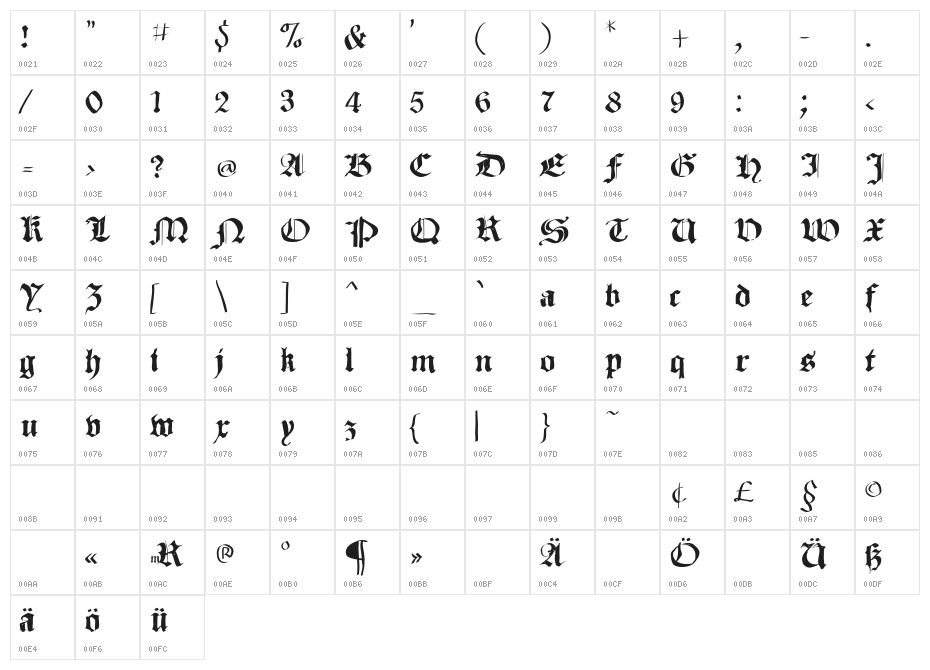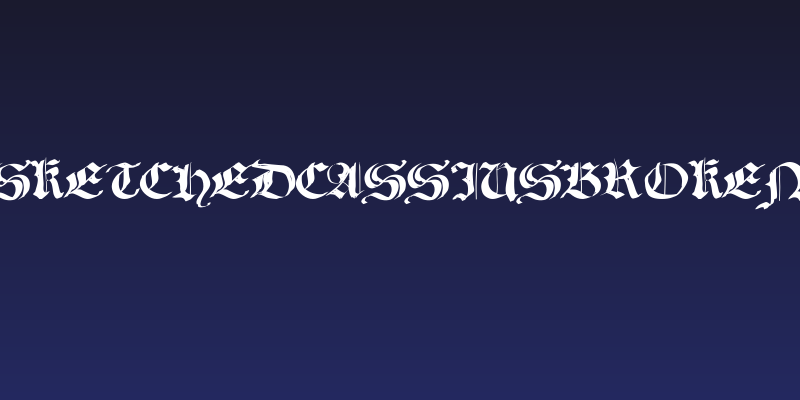
SketchedCassiusBroken Font
SketchedCassiusBroken Description
This font features a bold and dramatic style, reminiscent of traditional blackletter typography. The characters are intricately designed with sharp angles and elaborate flourishes, giving it a gothic and medieval appearance. The uppercase letters are particularly ornate, with exaggerated serifs and strokes that create a sense of movement and intensity. The lowercase letters maintain the same level of detail, ensuring consistency throughout the typeface. Numbers and special characters are also included, each crafted with the same attention to detail. This font is ideal for projects that require a historical or dramatic flair, such as event posters, book covers, or branding for luxury products.
Overall StyleGothic, Dramatic
Proposed ProjectsIdeal for historical-themed designs, gothic posters, book covers, and luxury branding.